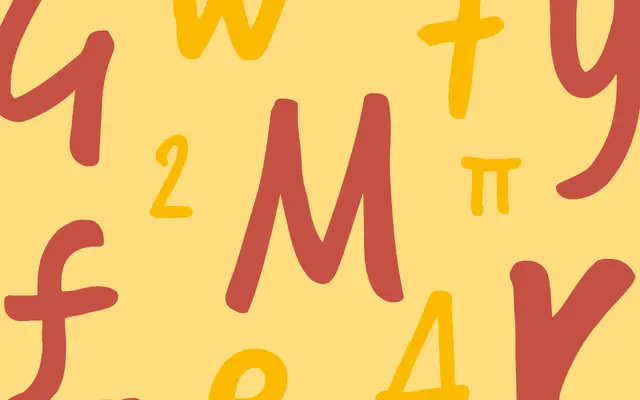
Verveine
Dalton Maag · Luce Avérous · 2023
scriptinformal handwritten script
Verveine specimen from Dalton Maag
An informal handwritten script by Luce Avérous, a commercial extension of the freeware Trashhand with a new lowercase and broader language support.
An informal handwritten script by Luce Avérous developed as a commercial extension of the popular freeware font Trashhand. The lowercase has been redrawn from scratch and the writing system support significantly expanded, while the family keeps the spontaneous marker-pen energy that made the original a default for casual social, packaging and editorial work. A single Regular cut carries the family.
Dalton Maag describe Verveine as a charming and authentic informal handwritten script suitable across a range of media, created as a commercial extension of the freeware font Trashhand, with a completely new lowercase design and enhanced writing system support.